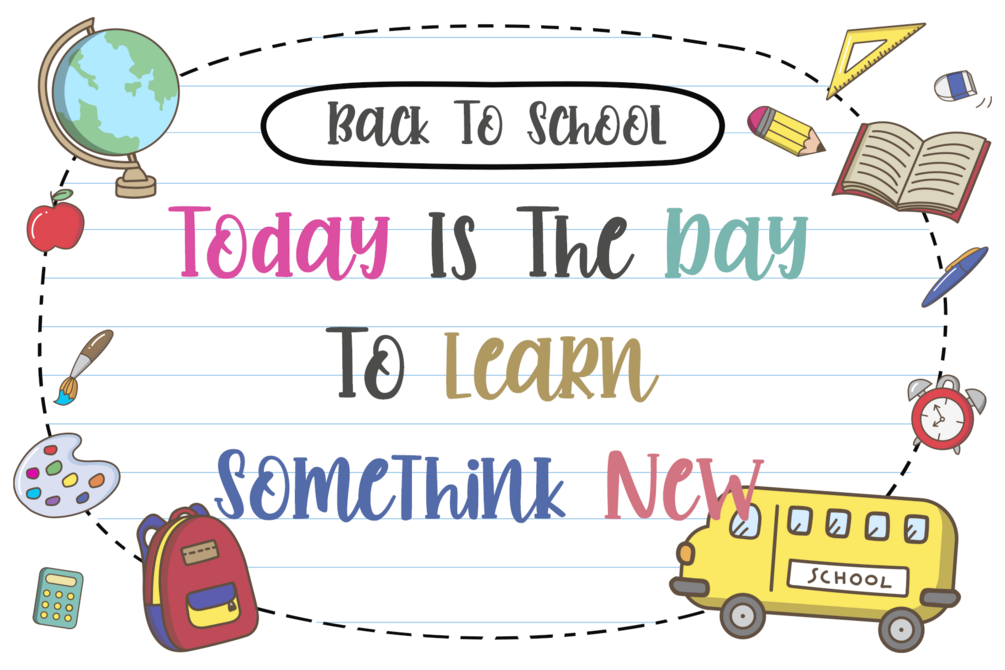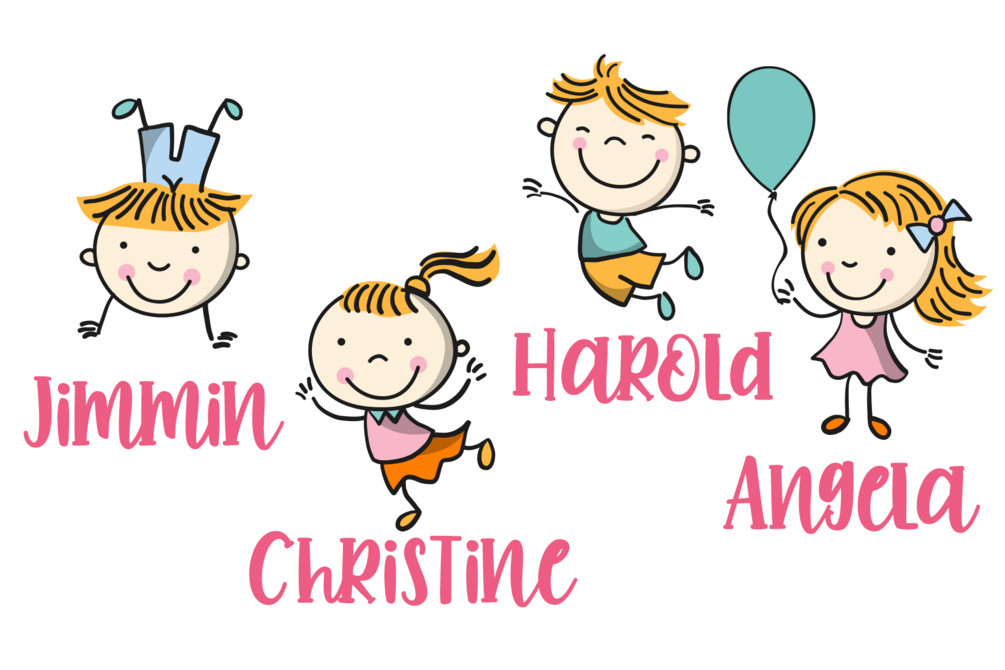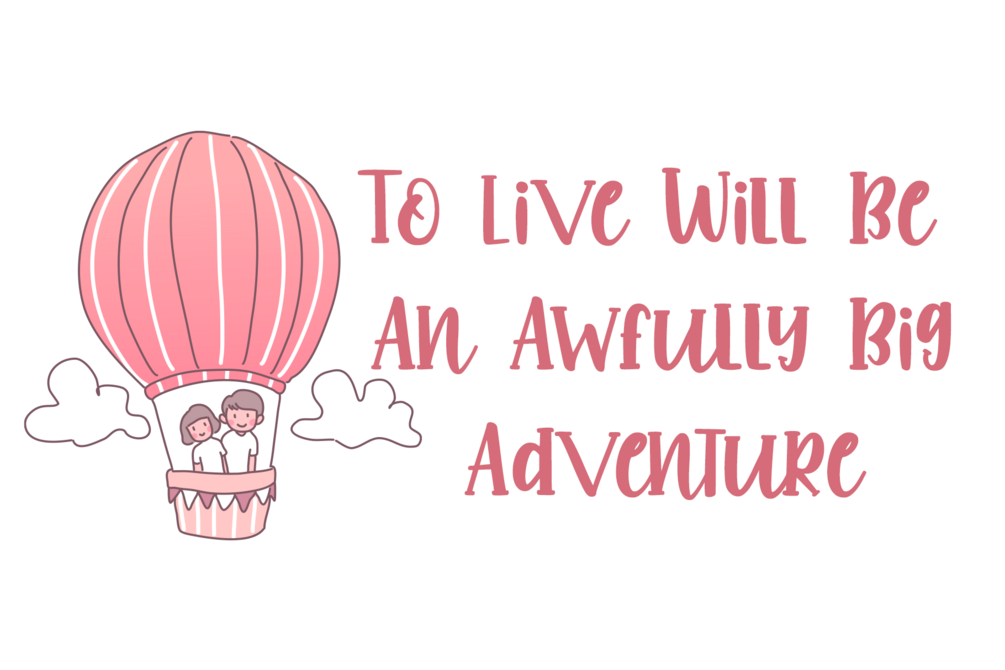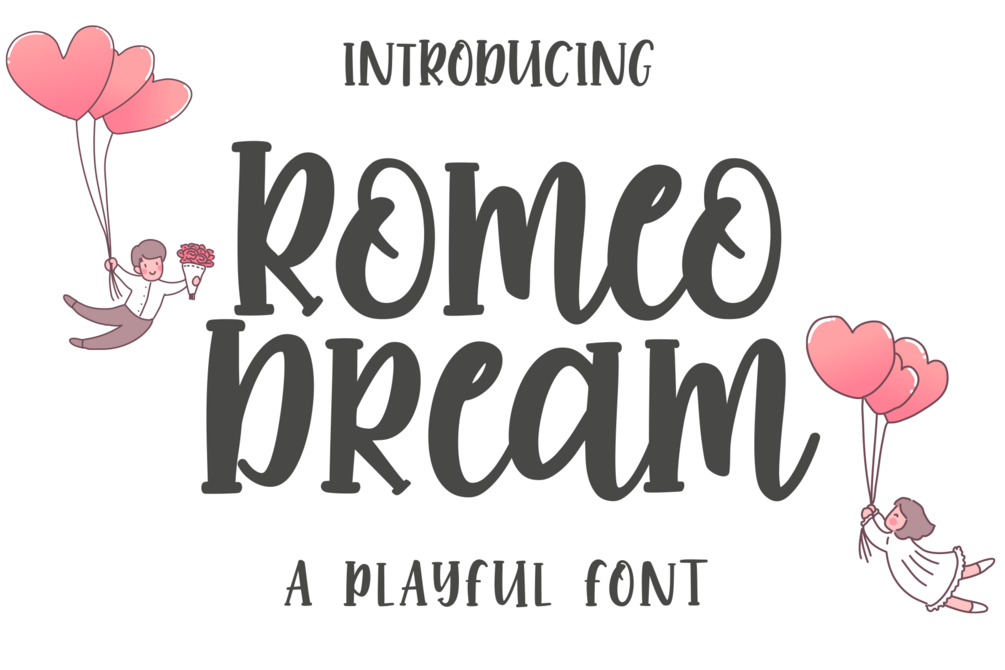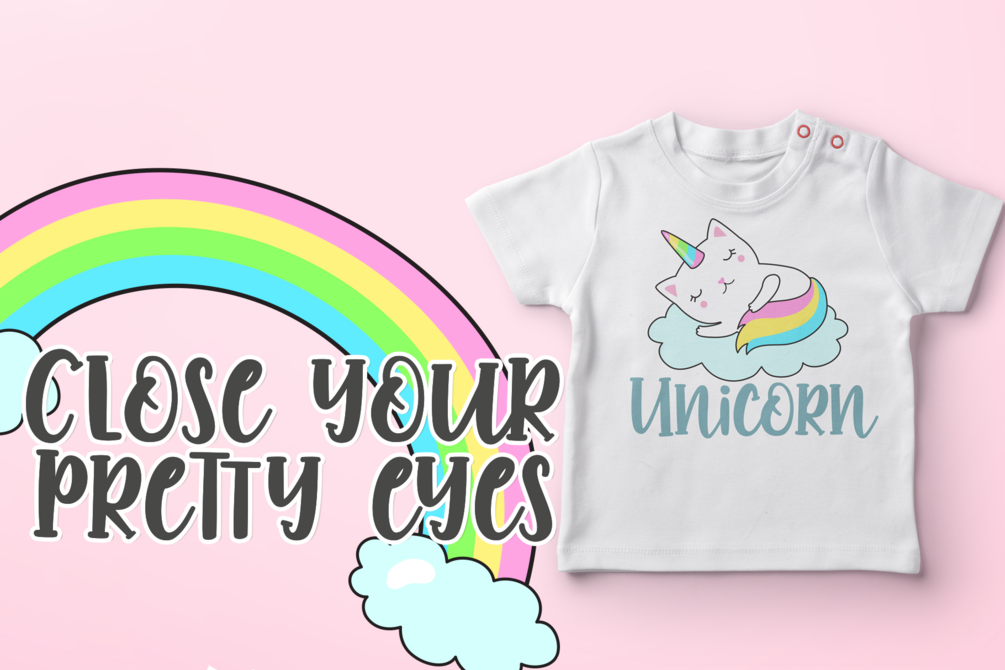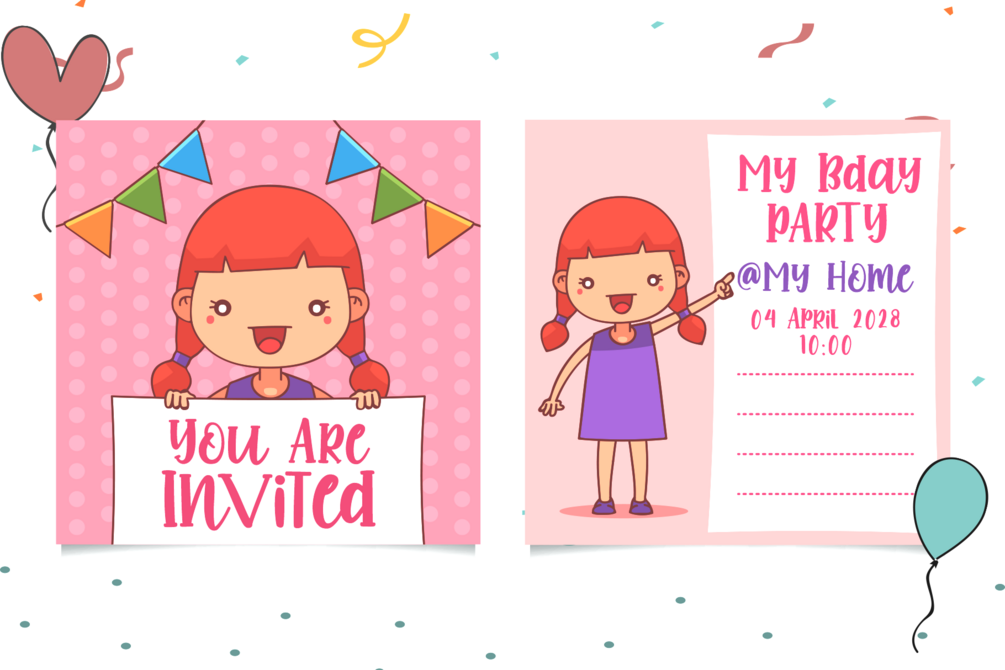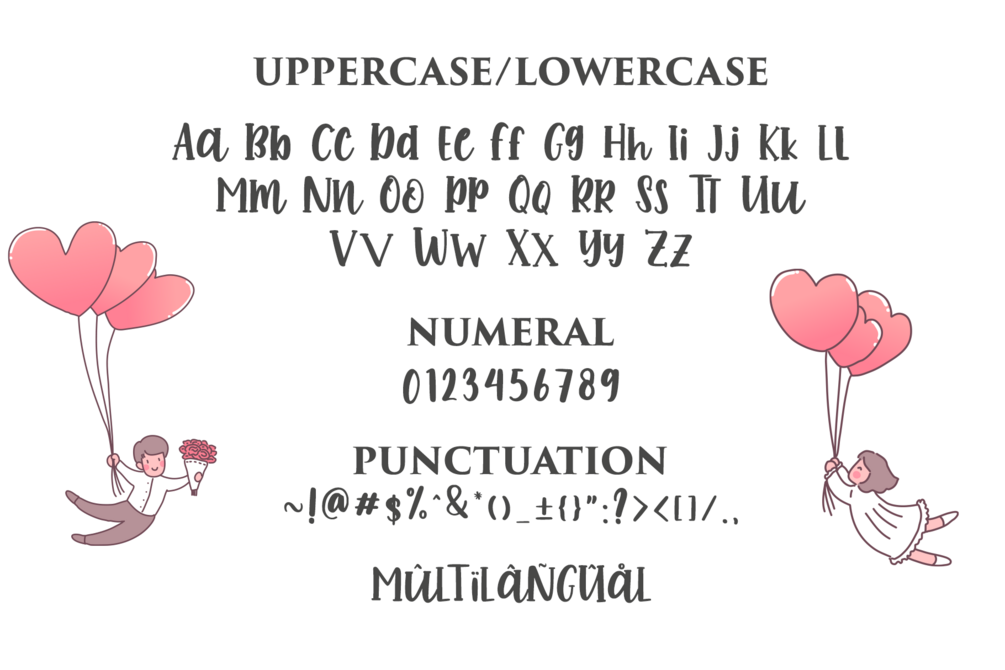
Romeo Dream
Romeo Dream is a playful handwritten script font bursting with cute charm and handcrafted warmth. Carefully designed to become your true favorite, this adorable calligraphy font adds fun, romantic, and whimsical vibes to every project — perfect for Valentine’s cards, wedding invitations, kids’ branding, greeting cards, stickers, social media posts, baby shower designs, logos, mugs, and Cricut crafts.